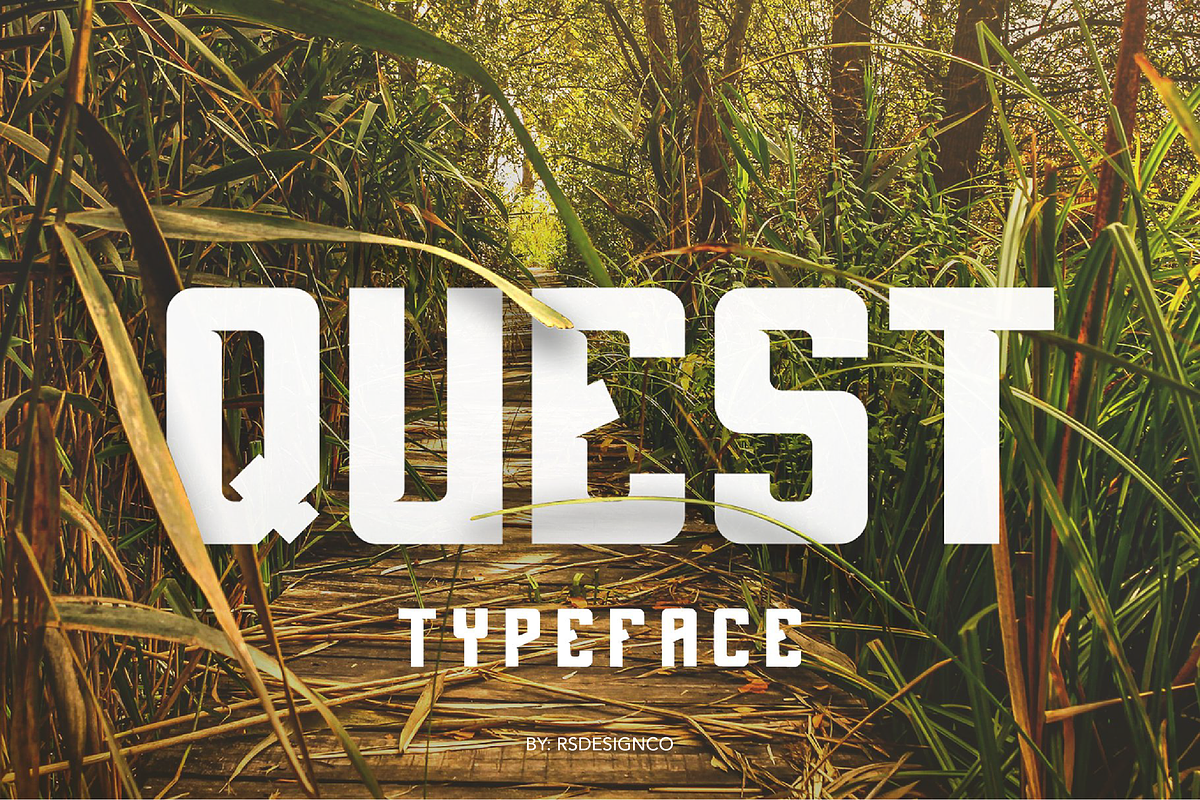
QUEST Typeface Free Download is a bold and versatile typeface designed to make a strong impact. Featuring sharp, clean lines and a modern aesthetic, this font is perfect for branding, logos, headlines, posters, and any design project that demands attention and clarity.
The geometric and balanced structure of QUEST Typeface Free Download ensures legibility in both large and small sizes, making it ideal for both display and body text. Whether you're working on a tech brand, a creative agency, or a modern design project, this font adds strength and professionalism to your typography.